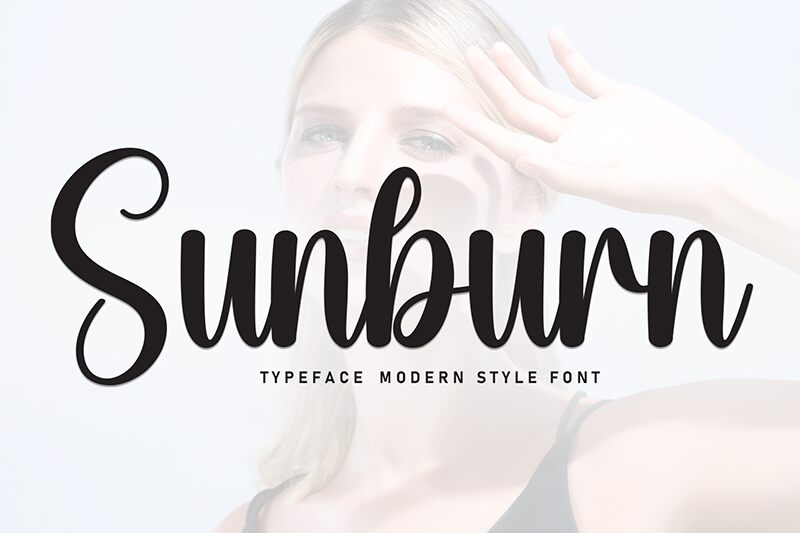
Sunburn
Sunburn font, designed by Scratchones, is a modern handwritten font with an organic and flowing appearance. This elegant free typeface features expressive movements that capture attention and encourage engagement. Developed to look natural and artistic, it brilliantly showcases legibility especially for printed designs.
Use this font for invitations, logos, digital typography projects, product packaging design and labels, branding purposes, social media posts or banners as well as photography art among others. Other recommendations include greetings cards posters flyers scrapbooks or wedding signage.